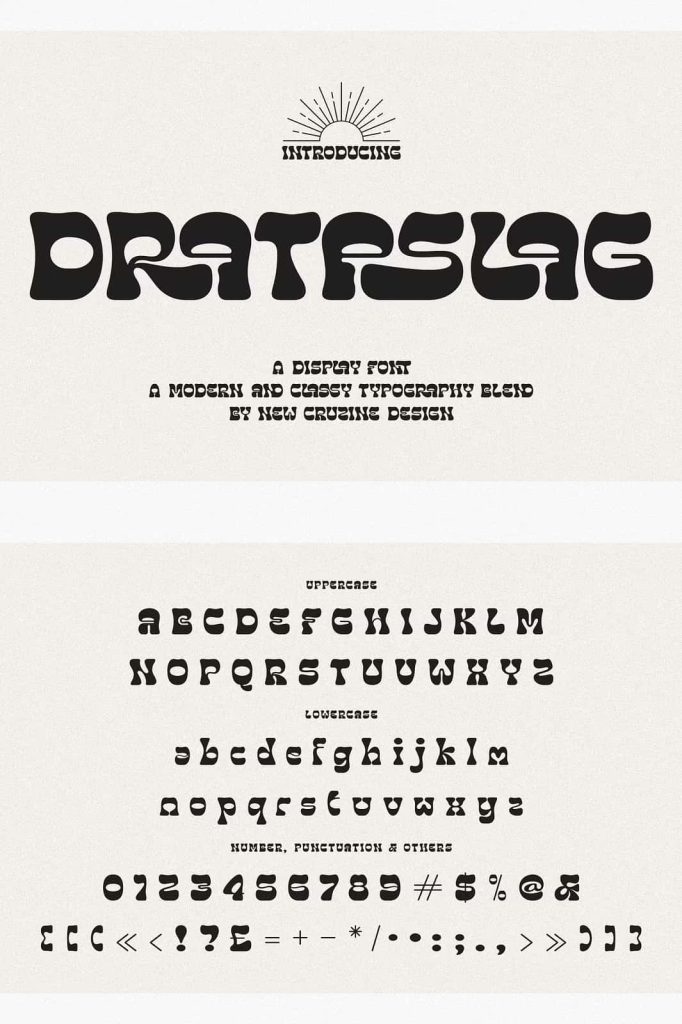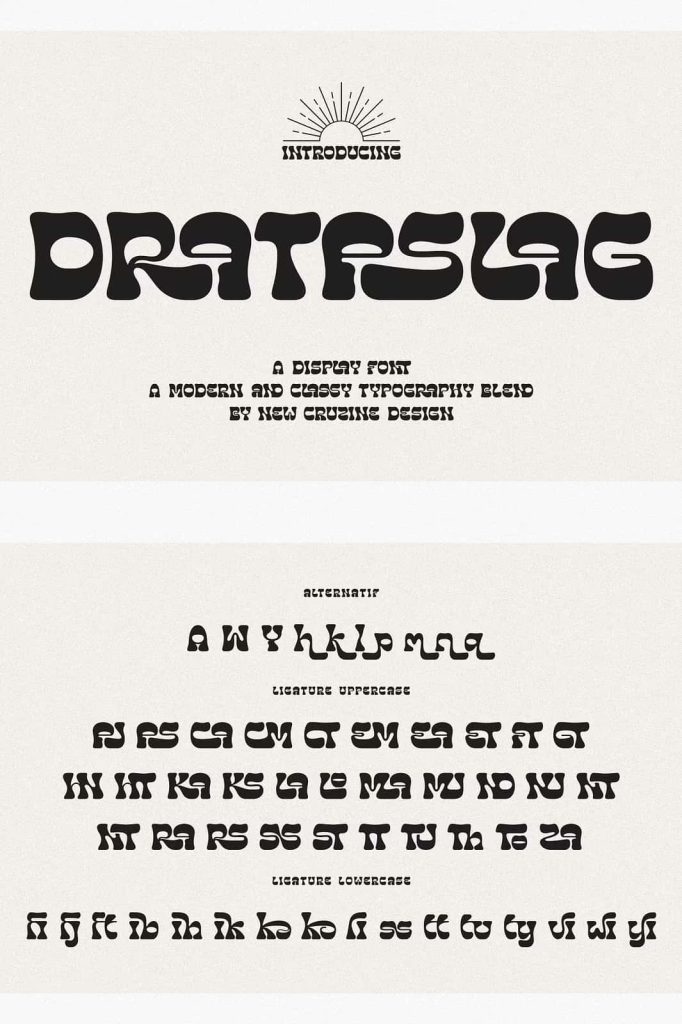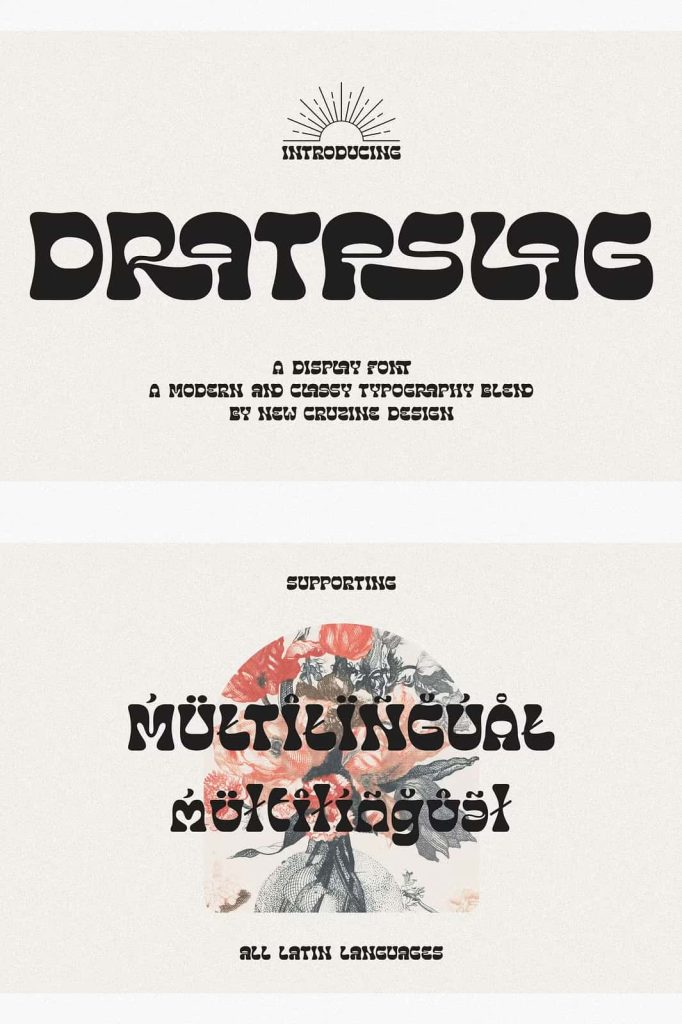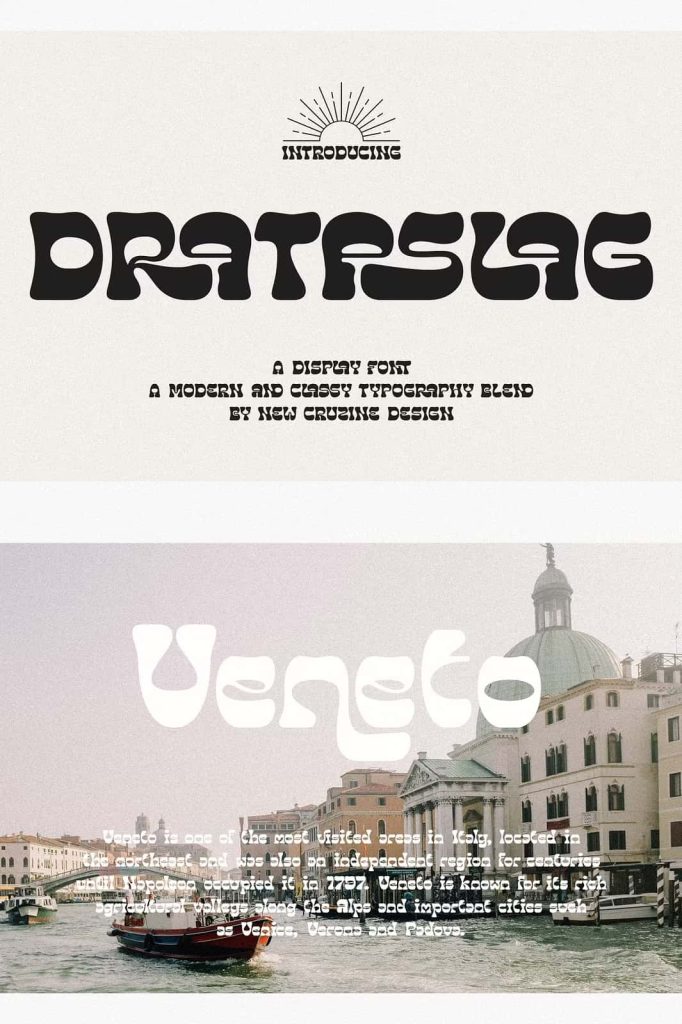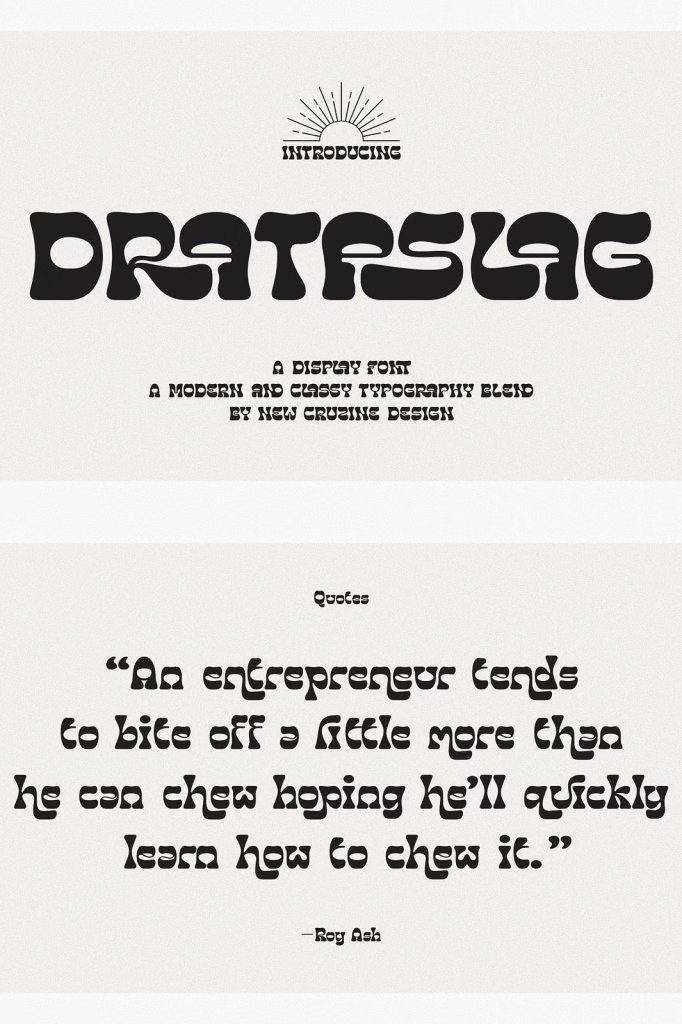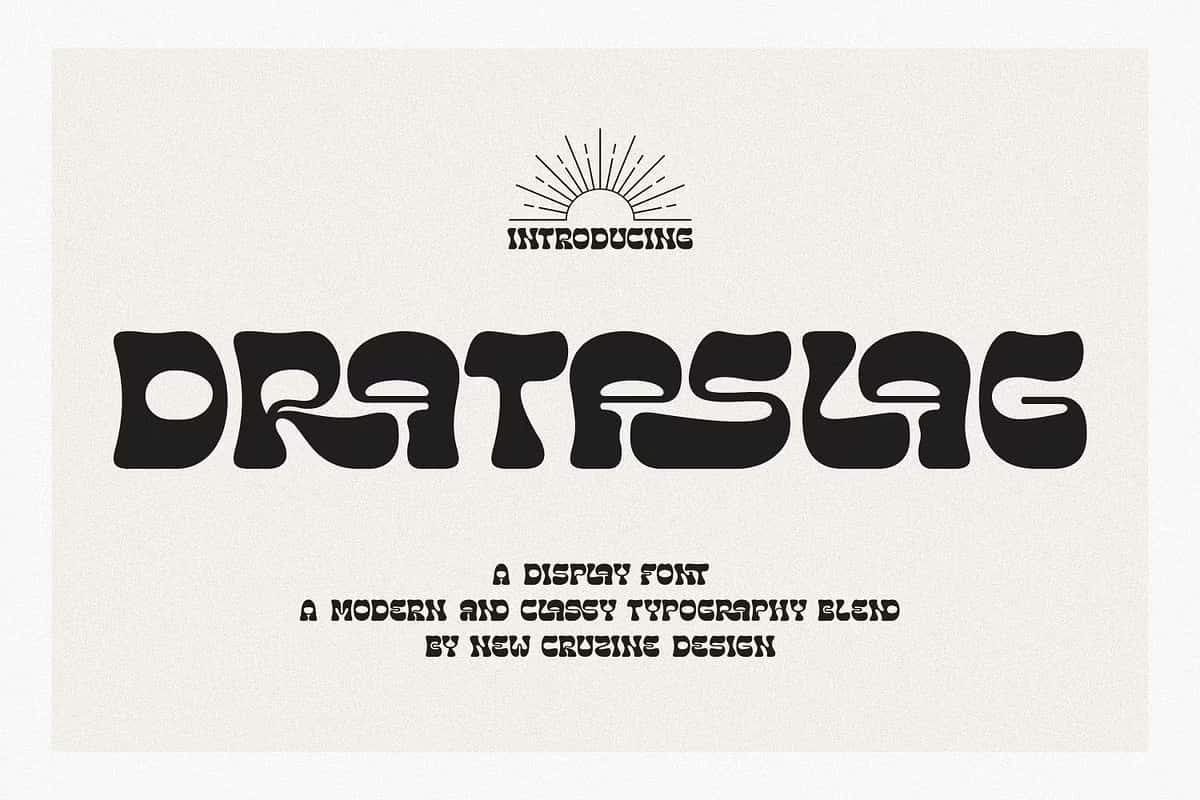
Drataslag Groovy Artistic Font
Drataslag Groovy Artistic Font brings a bold fusion of trendy, retro, and artistic elements that elevate any modern creative project. This typeface offers a striking balance between elegance and expressive character, making it a standout choice for designers who seek originality, vibrancy, and memorable visual impact. Created with a distinctive western and funky vibe, Drataslag ensures that every letter communicates personality and style. Perfect for branding projects, website titles, packaging designs, and logo identities, this font transforms ordinary text into a dynamic artistic statement.
Experience Retro Style with Modern Energy
Every letter in the Drataslag Groovy Artistic Font carries artistic craftsmanship inspired by retro typography and groovy culture. Yet, it introduces a sleek modern structure, allowing designers to apply it to a wide range of contemporary applications. With smooth curves, unique stroke proportions, and powerful visual rhythm, this font feels fresh while celebrating the aesthetics of iconic 70s and early 80s design movements.
Its balance of funky expression and refined quality makes it easy to integrate into digital branding, printed campaign materials, and creative advertising. Whether the goal is to build nostalgia or construct an innovative artistic presentation, Drataslag delivers professional versatility.
Create Original and Distinctive Visual Branding
Drataslag includes an extensive collection of alternates and ligatures that empower designers to craft unique and striking typography compositions. These variations enhance lettering customization, enabling smooth text flow, signature-style titles, and expressive word concepts that stand out from common display typefaces. Designers can experiment freely and create remarkable design results without limitations.
Use Drataslag to establish strong visual narratives within any branding ecosystem. From elegant packaging to bold poster layouts, and from stylish merchandise to editorial magazine headlines, this font adapts effortlessly to multiple creative purposes. A well-designed font helps define a brand identity, and Drataslag excels in delivering a powerful design personality.
Perfect Choice for Various Creative Projects
The Drataslag Groovy Artistic Font is ideal for projects such as:
- Luxury and artistic branding identities
- Original and handcrafted logo designs
- Website headers, hero text, and digital banners
- Magazine and editorial title layouts
- Product packaging and label design
- Social media promotional graphics
- Poster and billboard advertising
- Creative merchandise and apparel design
Every project gains a refined artistic voice and visually dynamic character, ensuring a memorable viewer impression that strengthens creative presentation.
Boost Your Design Presence Today
Bring your visual ideas to life using Drataslag Groovy Artistic Font. Its expressive retro style and modern artistic structure give every design a high-value creative impact. The combination of elegance, groove, and flexible alternates makes this typeface an essential tool for designers seeking originality and professional flair.
Begin exploring creative typography that speaks with confidence and distinction. Drataslag invites you to design with freedom, imagination, and powerful artistic identity.